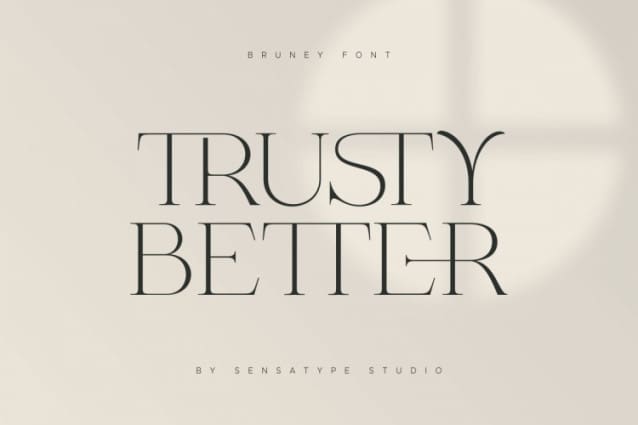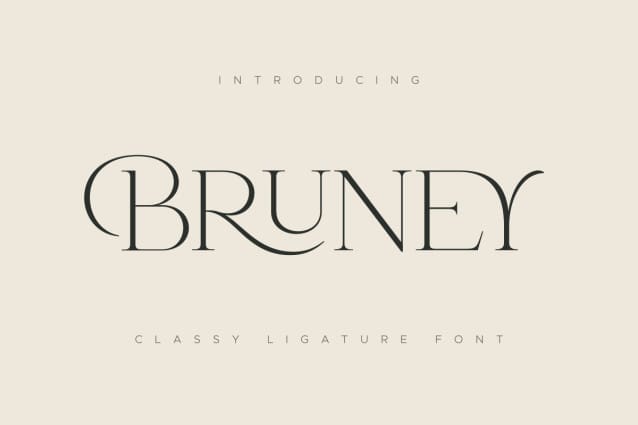
Bruney Font
Bruney Font is a Classy Ligature font with casual chic flair. It is perfect for branding, wedding invites and cards, and maybe for some project. This is perfect for BRANDING and LOGO DESIGN. You will get classy, elegant, and certainly unique logos with this font.